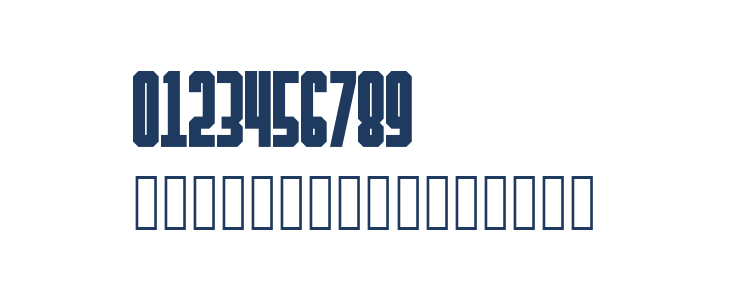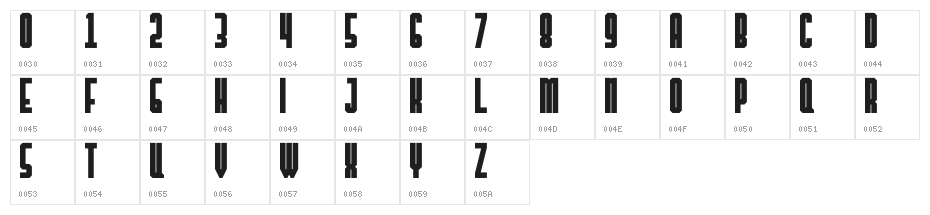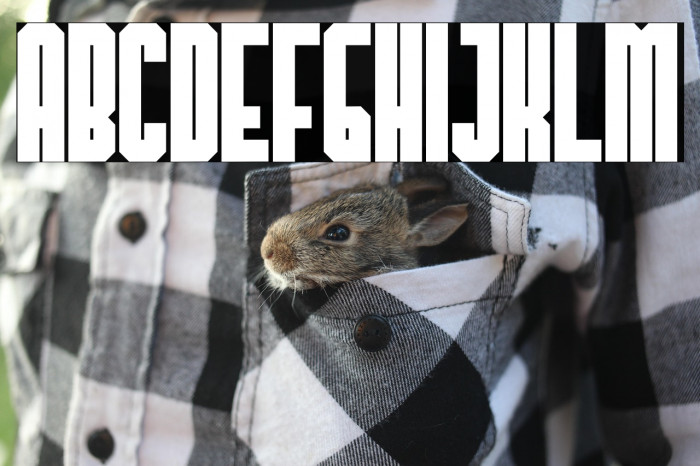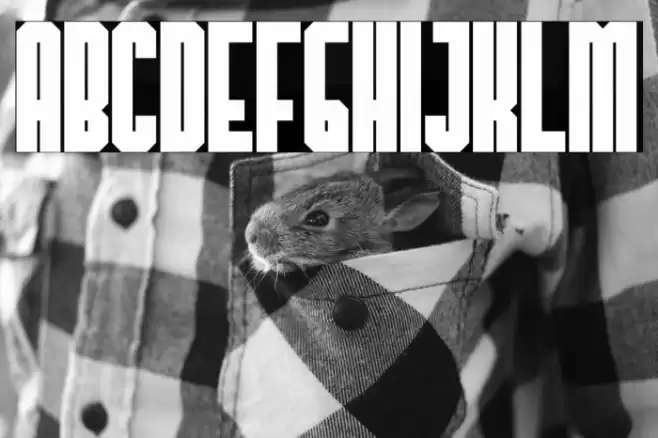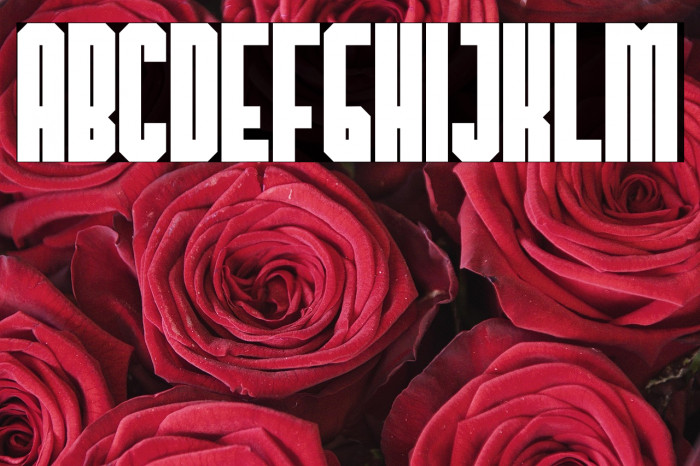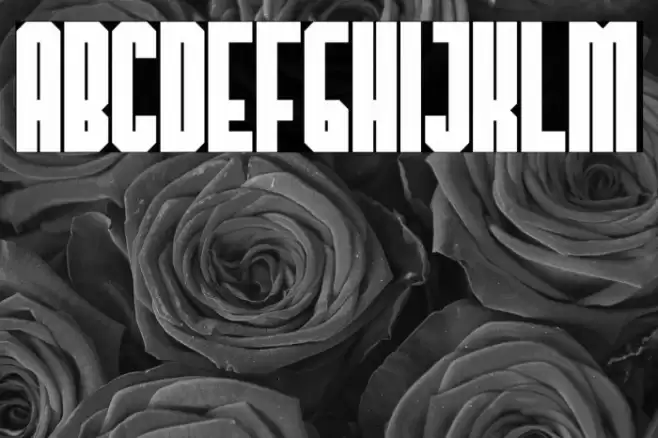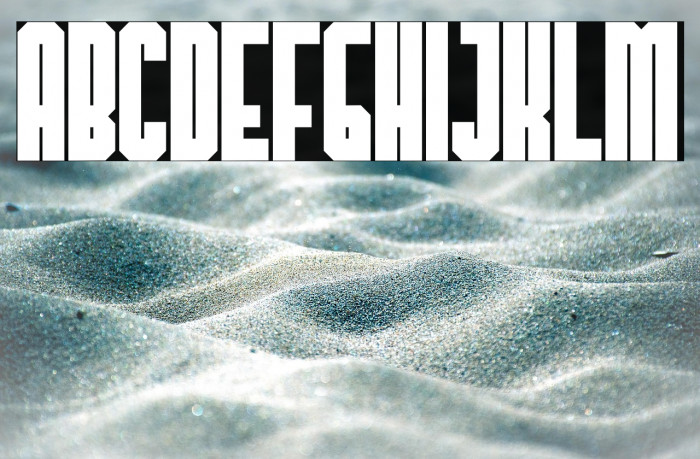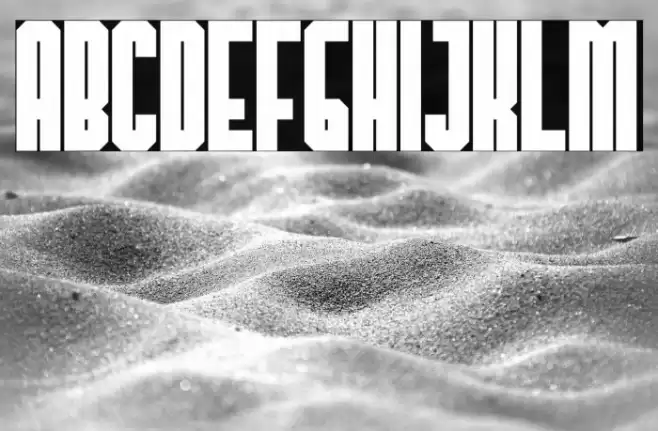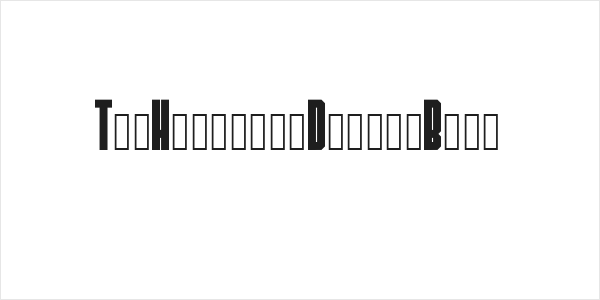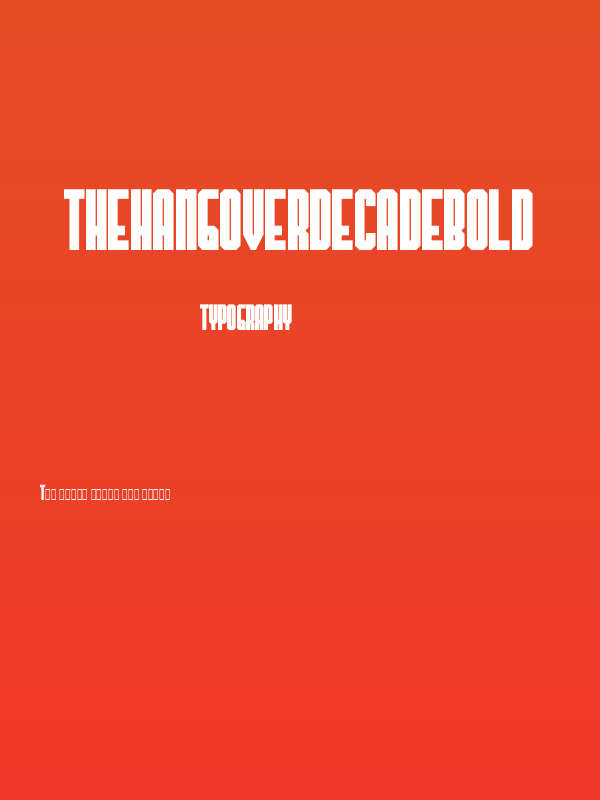
TheHangoverDecadeBold Font
TheHangoverDecadeBold Description
This font features a bold and striking design with a strong presence. The characters are tall and narrow, creating a condensed appearance that emphasizes verticality. The strokes are thick and consistent, providing a uniform look across all letters and numbers. The uppercase and lowercase letters maintain a similar height, enhancing the compact style. The font's geometric shapes and sharp angles contribute to a modern and edgy aesthetic, making it suitable for attention-grabbing headlines and impactful designs. Its boldness ensures readability even at smaller sizes, while the condensed form allows for efficient use of space.